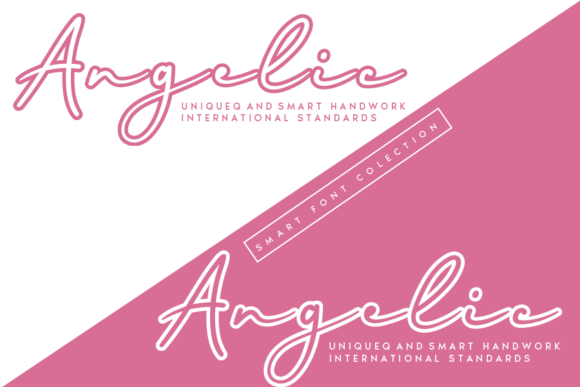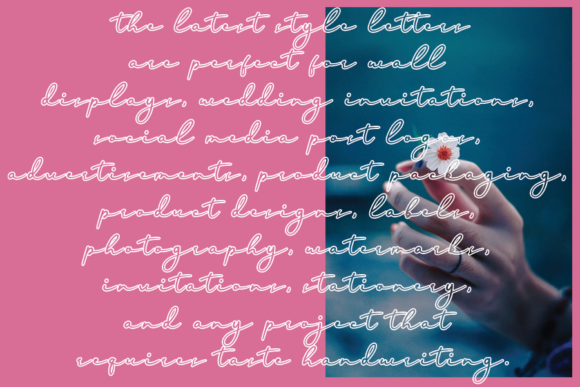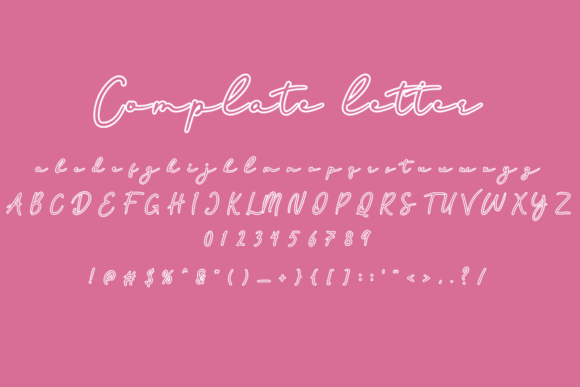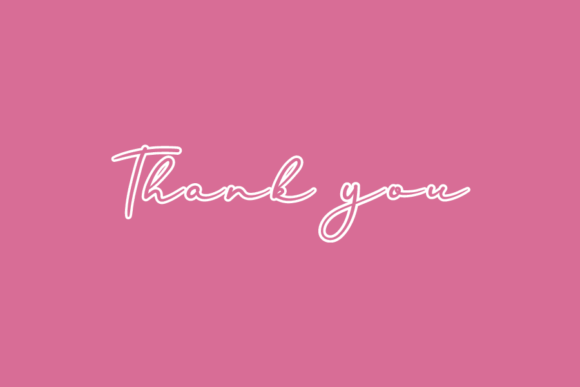
Introducing Angelic Font: Elevate Your Designs with Elegance and Sophistication
In the world of typography, few fonts manage to capture the essence of classic elegance while infusing it with a unique twist. Angelic Font is one such typographic marvel that brings a blend of traditional charm and modern flair to the table. Whether you’re a designer looking to elevate your Instagram feed or a crafty DIY enthusiast aiming to add a touch of sophistication to your projects, Angelic Font is poised to transform your creative ideas into stunning pieces of art.
The Inspiration Behind Angelic Font
Angelic Font draws its inspiration from the timeless beauty of classic typography. It pays homage to the traditional scripts and serif fonts that have been the backbone of elegant design for centuries. However, what sets Angelic apart is its unique style—a perfect amalgamation of vintage charm and contemporary design elements. This blend ensures that Angelic stands out in any design project, offering a fresh yet familiar aesthetic that captivates audiences.
One of the key features of Angelic Font is its incredible versatility. It’s not just limited to digital designs; it can seamlessly transition into various creative projects. Here are a few ways you can utilize Angelic Font:
- Instagram and Social Media: In the realm of social media, standing out is crucial. Angelic Font can help elevate your Instagram posts, stories, and bio, giving your profile a cohesive and sophisticated look.
- Calligraphy and Hand Lettering: For those who enjoy the art of calligraphy or hand lettering, Angelic serves as an excellent guide. It can help you achieve beautiful, flowing scripts that add a personal touch to your DIY projects.
- Branding and Marketing: Businesses looking to revamp their brand identity can also benefit from Angelic Font. Its classic yet modern appeal makes it suitable for logos, brochures, and website headers, ensuring your brand communicates elegance and professionalism.
- DIY Projects: From crafting personalized gifts to creating artistic home decor, Angelic Font can add a touch of elegance to your DIY endeavors. Use it for making cards, invitations, or any other paper craft that requires a beautiful typographic touch.
Why Choose Angelic Font?
With numerous fonts available today, what makes Angelic a preferred choice for designers and crafters? Here are a few reasons:
- Unique Style: Angelic brings a unique style that is hard to find elsewhere. Its ability to blend classic typography with modern design elements makes it a versatile choice.
- Ease of Use: Designed with user-friendliness in mind, Angelic Font is easy to integrate into various projects, whether digital or print.
- High Readability: Despite its elegant and sophisticated look, Angelic maintains high readability, making it suitable for both headings and body text.
Tips for Using Angelic Font
To make the most out of Angelic Font, consider the following tips:
- Mix and Match: Don’t be afraid to experiment by pairing Angelic with other fonts. A combination of serif and sans-serif fonts can create visually appealing designs.
- Play with Sizes: Utilize different font sizes to create a hierarchy in your design, making it more engaging and easier to read.
- Adjust Line Spacing: For better readability, especially in longer texts, adjust the line spacing to ensure your text is not too cramped or too spaced out.
Angelic Font is more than just a typographic style; it’s a tool that can elevate your designs to new heights of elegance and sophistication. Whether you’re working on digital projects, crafting beautiful calligraphy, or embarking on DIY endeavors, Angelic brings a touch of classic charm with a modern twist. By incorporating Angelic Font into your creative process, you’re not just choosing a font—you’re embracing a design philosophy that values beauty, versatility, and creativity. So, let Angelic be the voice of your next design project, and watch as your creative ideas transform into true pieces of art.